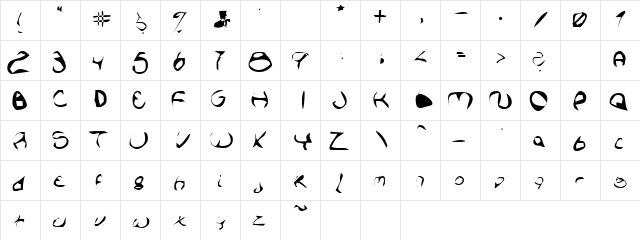
Barrakuda quor
Design Context for Barrakuda Typeface
Barrakuda is a composed and adaptable typeface that performs quietly and consistently across a wide range of design contexts.